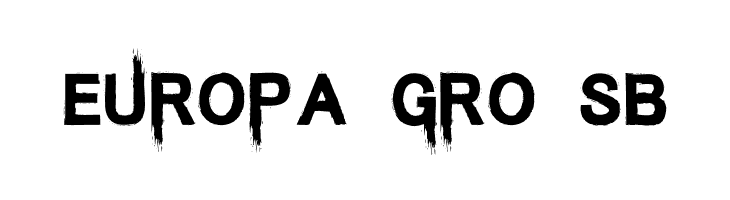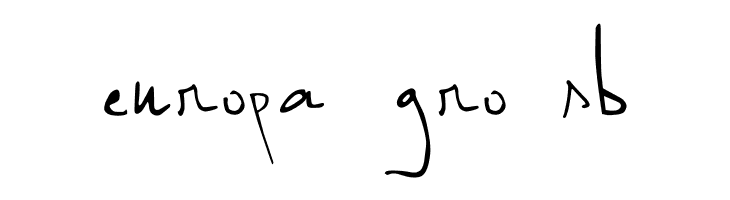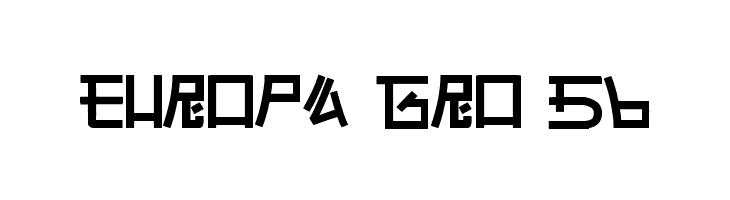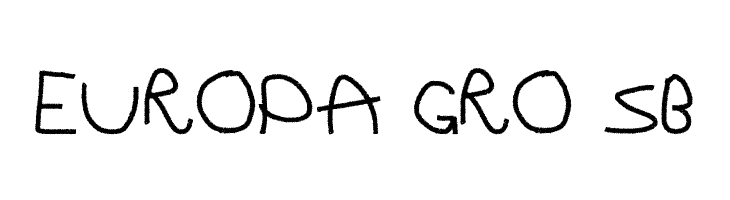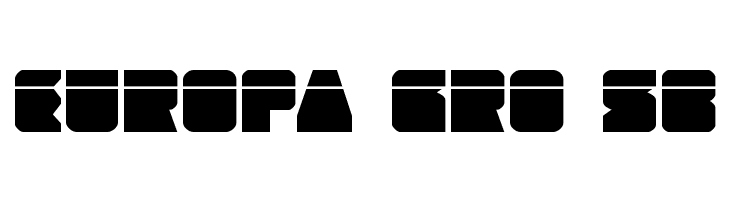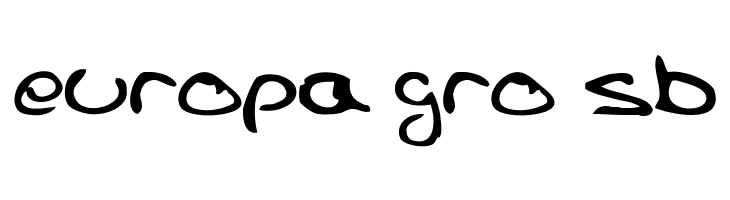
A bold, distressed font with a rugged, grunge-like appearance.
A playful, hand-drawn font with tall, narrow characters and a whimsical style.
Bold and italicized font with a modern, dynamic style.
Bold and italic serif font with a classic yet modern appeal.
A playful, handwritten font with a casual and organic style.
A bold, geometric stencil font with a futuristic and industrial style.
A playful, handwritten font with bold, dynamic strokes and a creative flair.
A bold, edgy font with sharp, angular lines and a dynamic appearance.